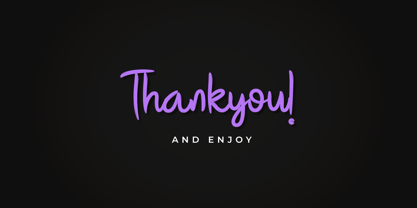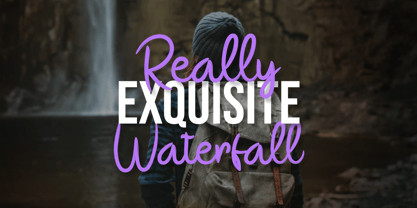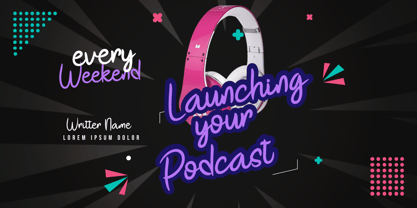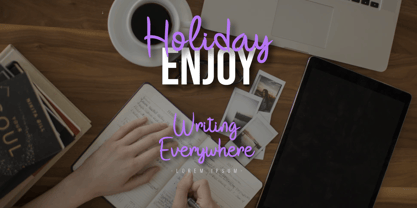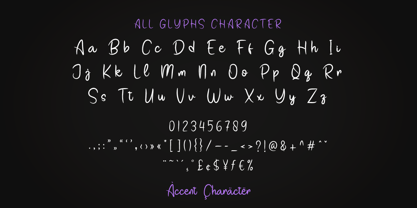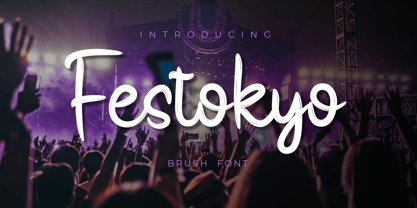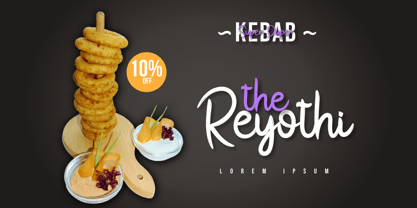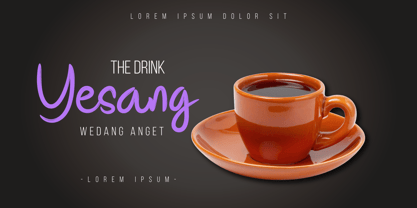
Festokyo
La familia tipográfica Festokyo fue diseñada por Lita Faolina y publicada por Product Type. Festokyo contiene 1 estilos.
Let the festivities begin with Festokyo - Brush Handwritten Font! This vibrant and dynamic typeface captures the spirit of celebration with its energetic strokes and playful design. Perfect for projects that require a dash of joy and excitement, Festokyo is ideal for creating lively event posters, cheerful greeting cards, or vibrant social media graphics. With Festokyo, every design becomes a celebration, spreading happiness and positivity wherever it goes. Get ready to ignite the party spirit and bring your designs to life with Festokyo - the font that's always ready to celebrate!